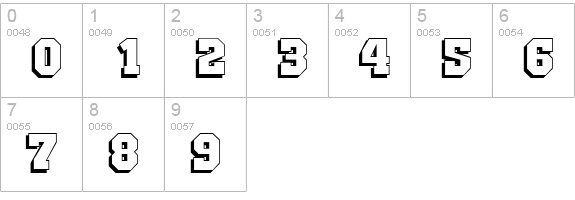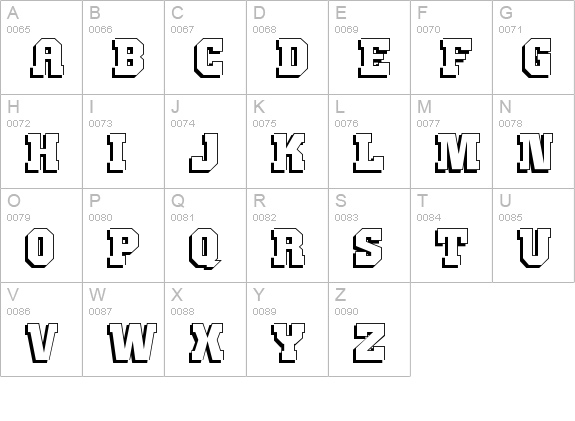
JimThorpe High Font Details
JimThorpe High font is a unique and stylish typeface that exudes a sense of classic elegance and sophistication. With its bold and eye-catching design, it is perfect for making a statement in any project. The strong, yet slightly playful, letterforms of JimThorpe High font will instantly grab the attention of viewers and leave a lasting impression. What sets JimThorpe High font apart is not just its striking appearance, but also the fact that it is available for free download at FontsMarket.com. This means that you can easily access this stunning font and use it in your personal or commercial projects without any cost. Whether you're designing a poster, logo, website, or any other creative work, JimThorpe High font is sure to elevate your design and make it stand out from the crowd. Embrace the elegance and versatility of JimThorpe High font today by downloading it for free at FontsMarket.com and take your design projects to the next level!